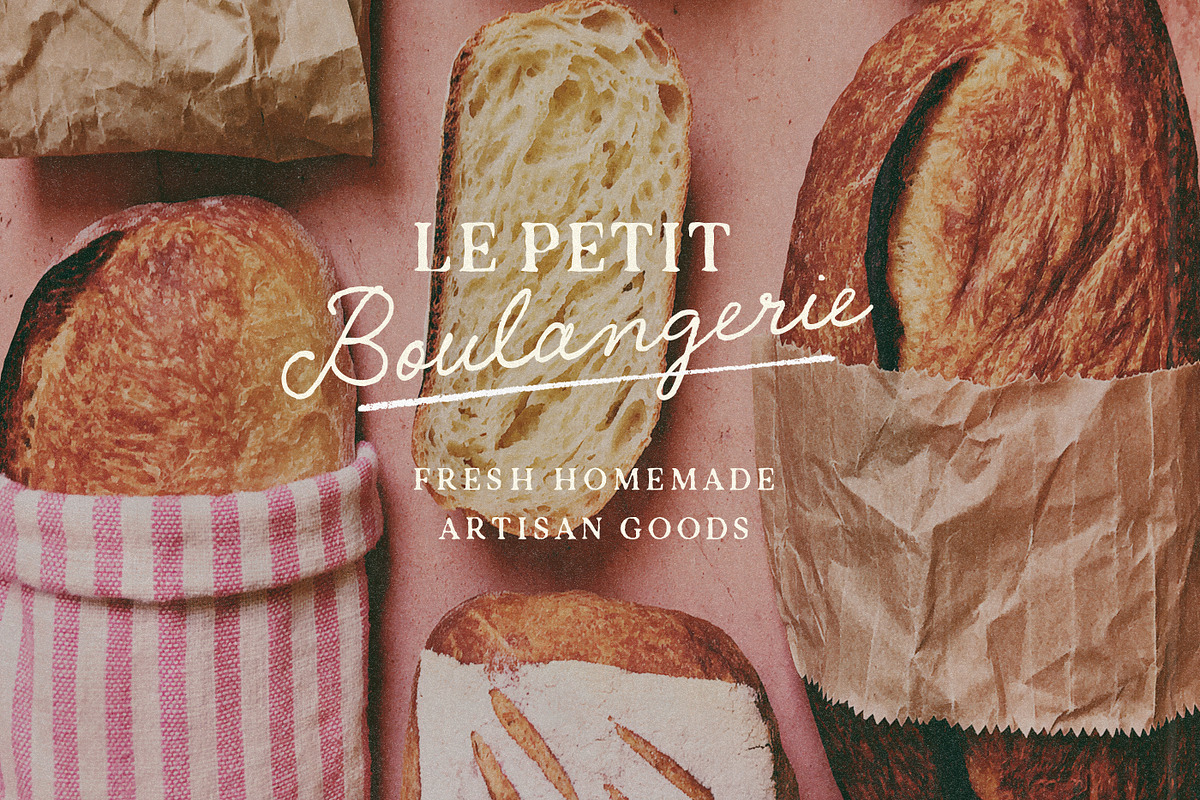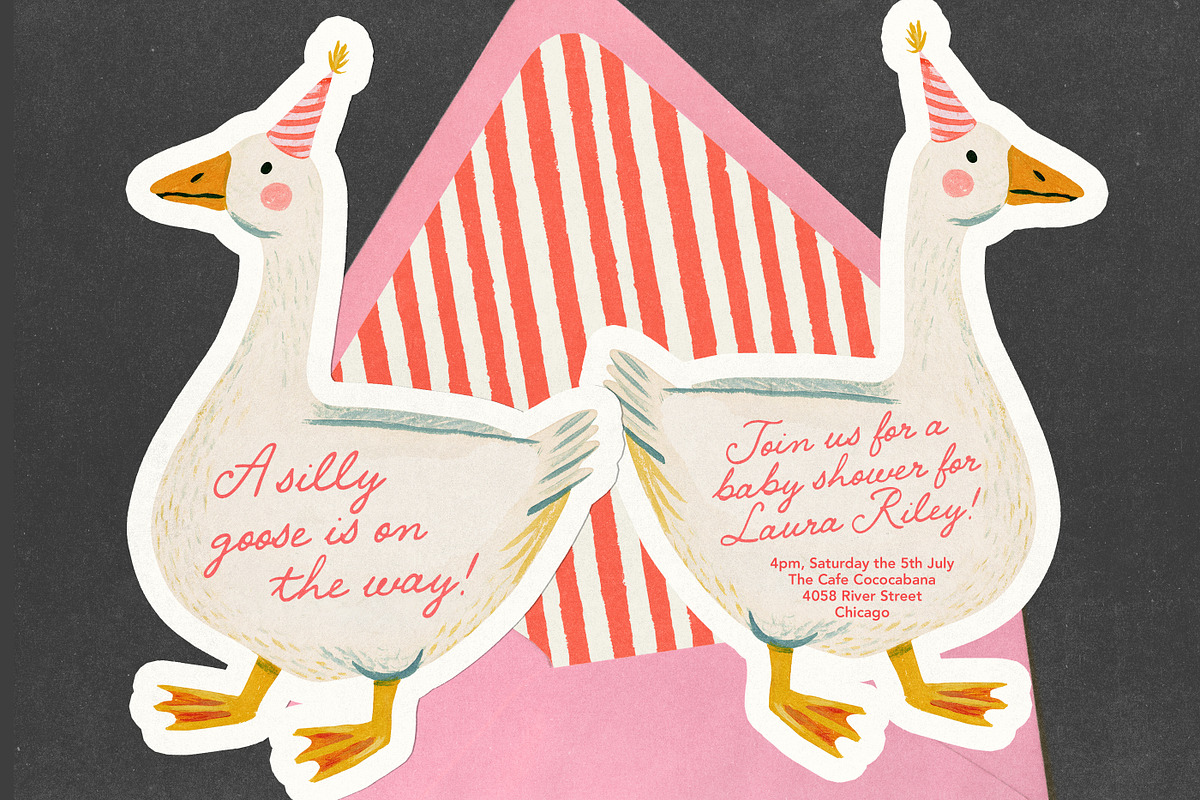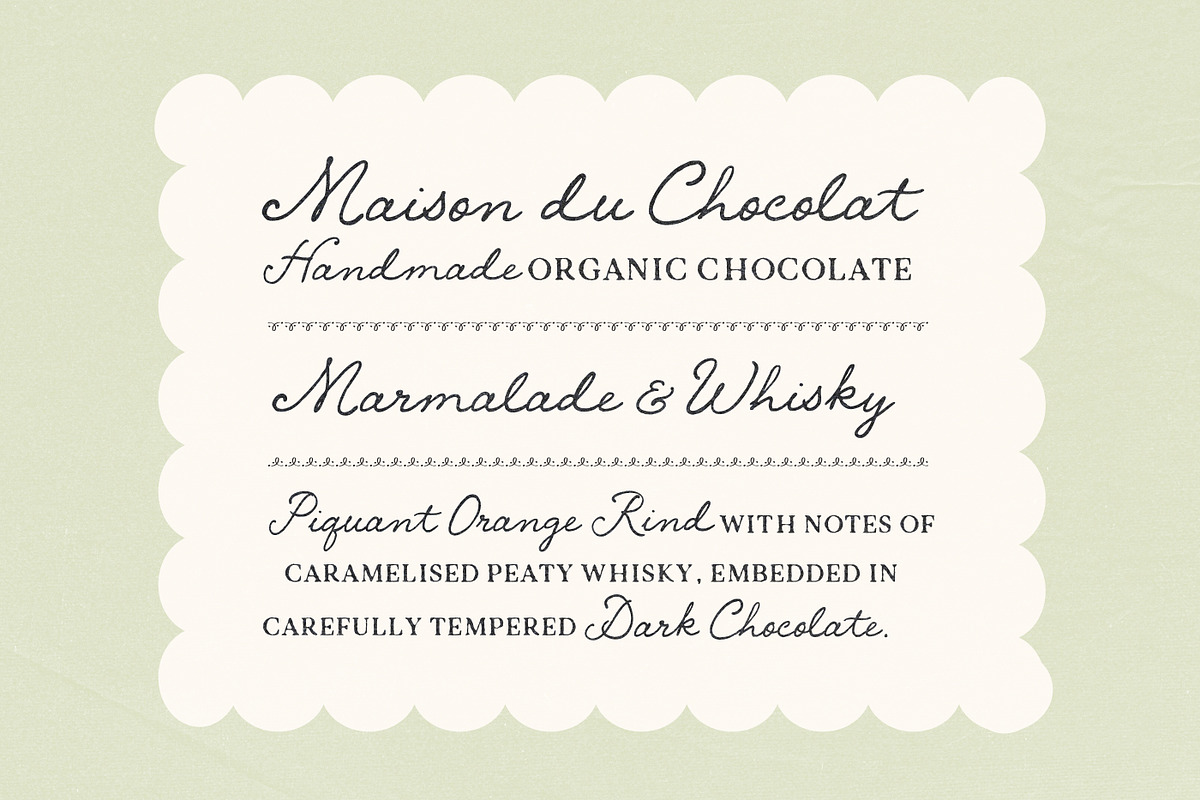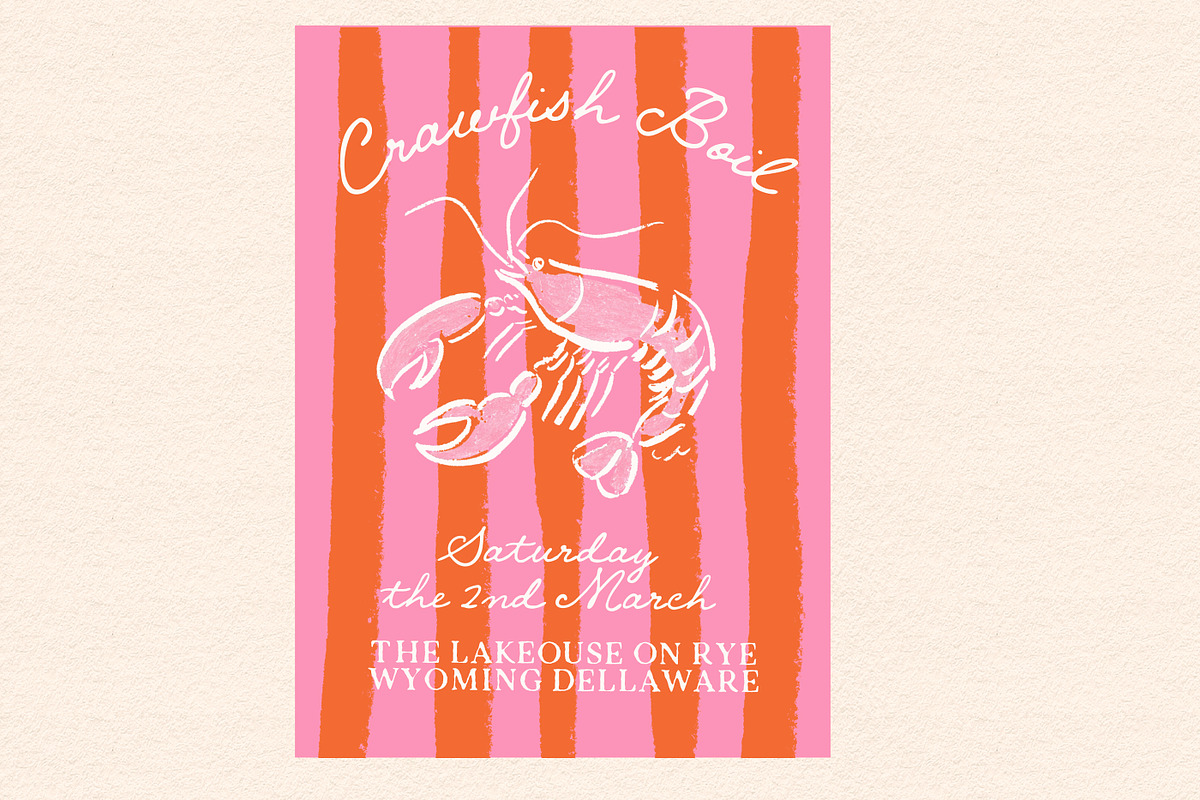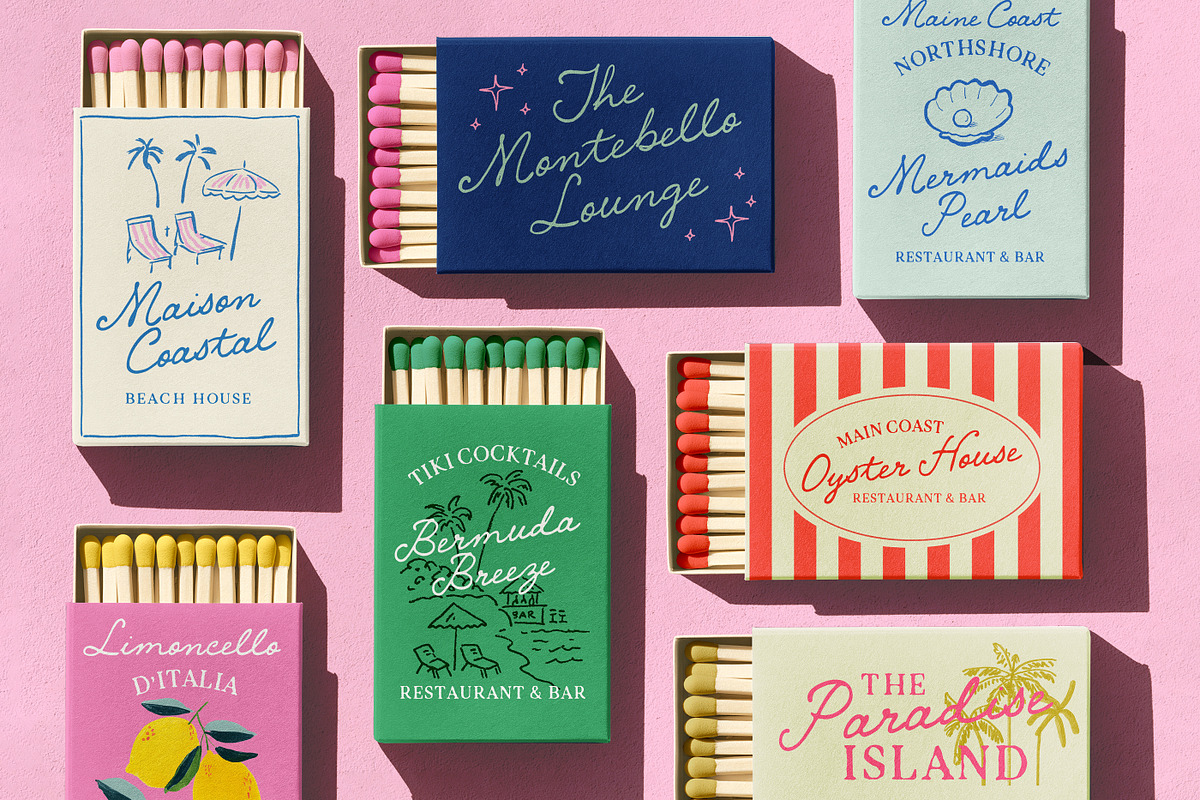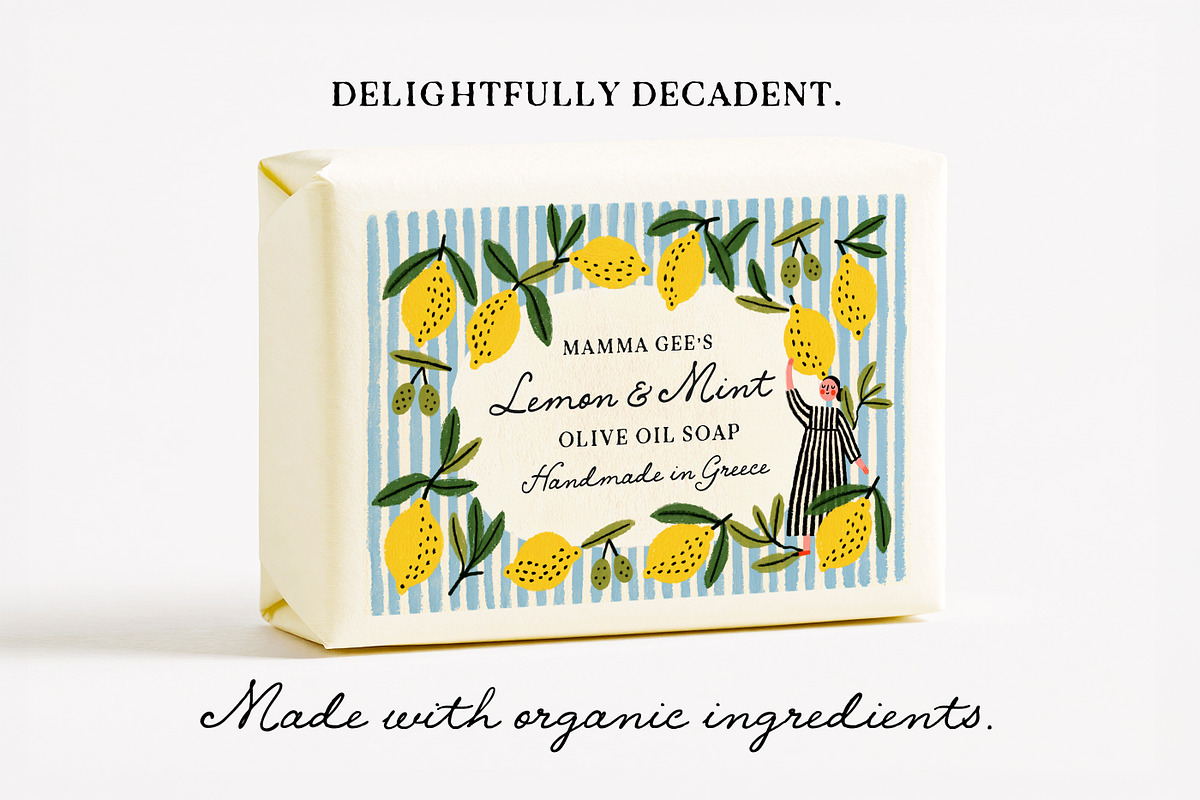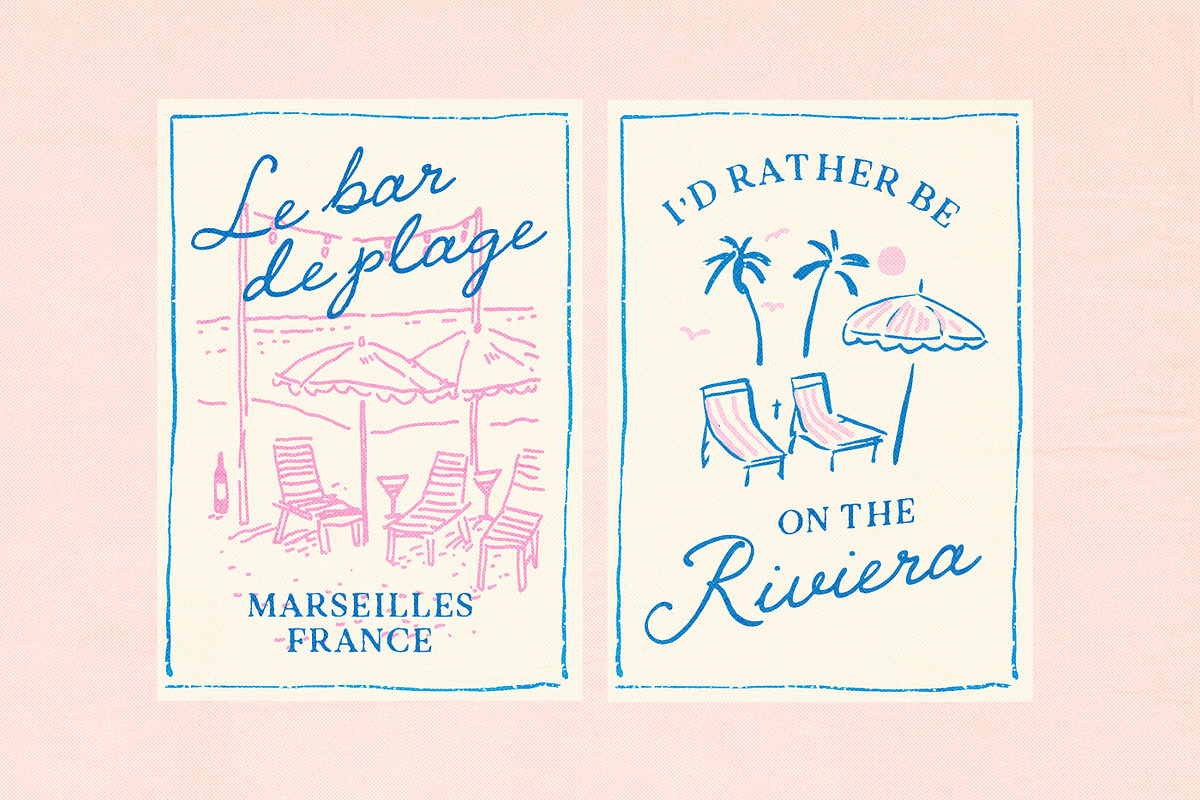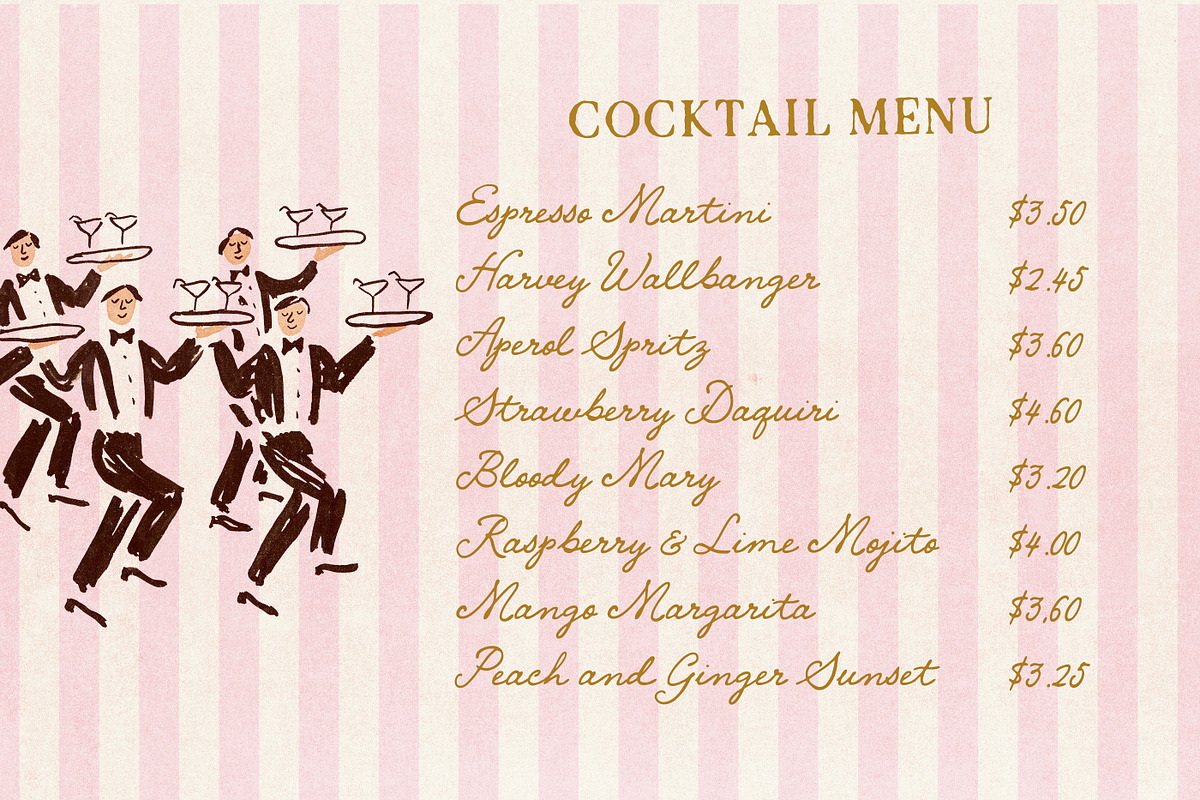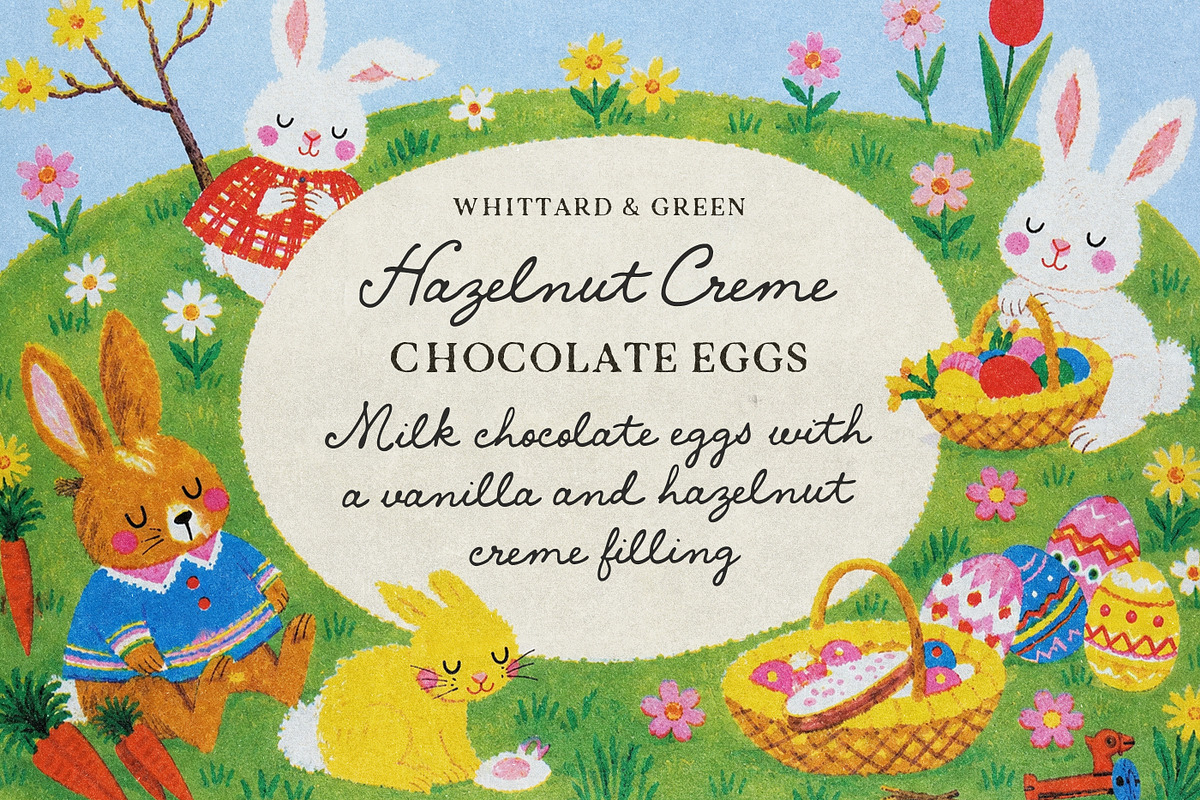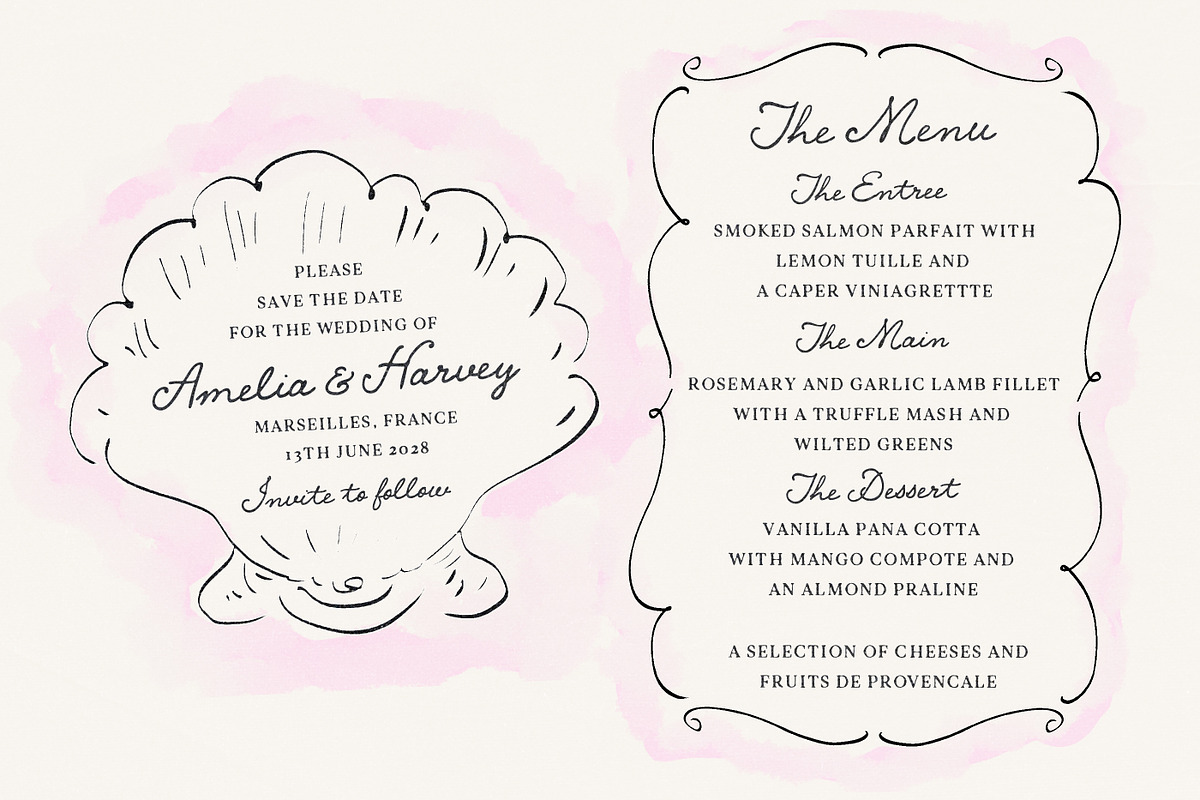
The Marigold Grand Font Duo
Say hello to The Charming Marigold Grand Font Duo!
A Charming, romantic handwritten Script, paired with a rustic, vintage, rough-egded printpress style Serif - perfect for invitations, boutique brands, quaint packaging and labels, suave merch, and so much more :)
The script comes in various minor variants to get that perfect weight/slant and width for your project.
The printpress style serif has exaggerated 'leaked-ink' style edges , perfect as a companion on things like invitations and labels, where smaller legible text is needed.